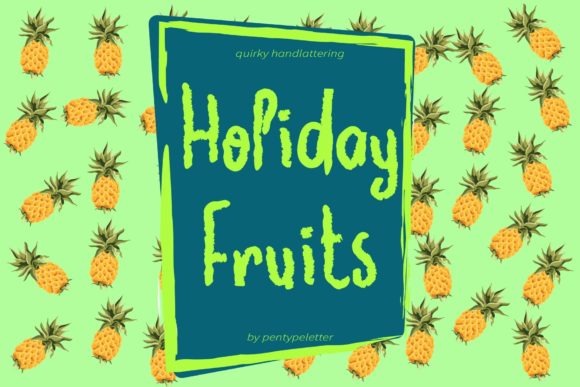
Indulge in the vibrant world of Holiday Fruits Font, a captivating display font that will transform your creations into irresistible masterpieces. Crafted by the skilled hands of pentypeletter, this font embodies the essence of summer bliss and carefree adventures.
Immerse yourself in the effortless charm of Holiday Fruits Font. Its graceful strokes and playful curves dance across the page, evoking a sense of modern sophistication that will captivate your audience. Each letter is a work of art, adorned with subtle brushstrokes that add depth and character to your designs.
Whether you're designing a captivating fashion website, crafting eye-catching social media graphics, or creating unforgettable invitations, Holiday Fruits Font is the secret ingredient that will make your creations shine. Its versatility knows no bounds, adapting seamlessly to any project you can dream up.
With Holiday Fruits Font, you'll have the power to:
- Embark on a tropical escapade with your website designs, inviting visitors to a world of sun-soaked style and carefree luxury.
- Transform your social media presence into a vibrant oasis, capturing the attention of followers with every post and story.
- Design invitations that are as unique and unforgettable as the celebrations they announce, leaving a lasting impression on your guests.